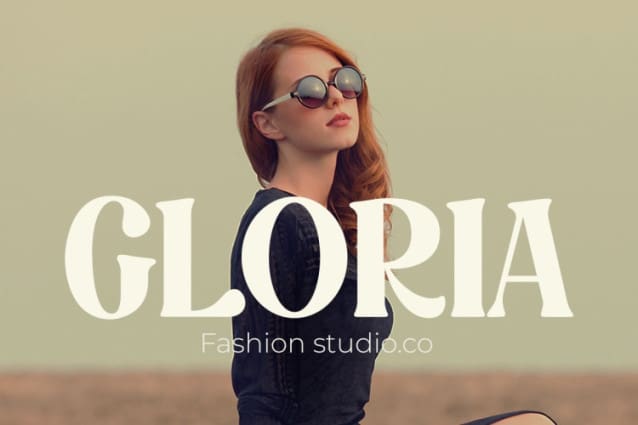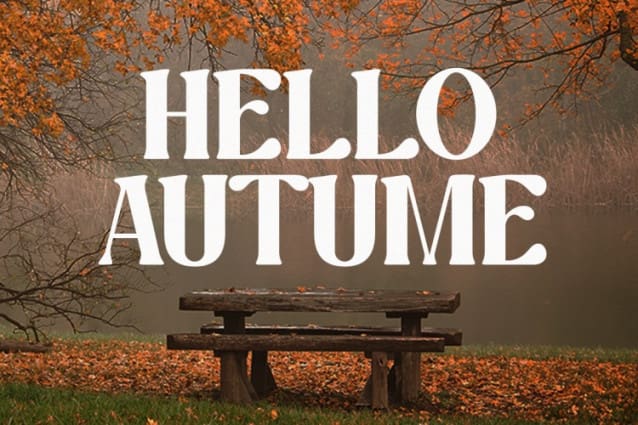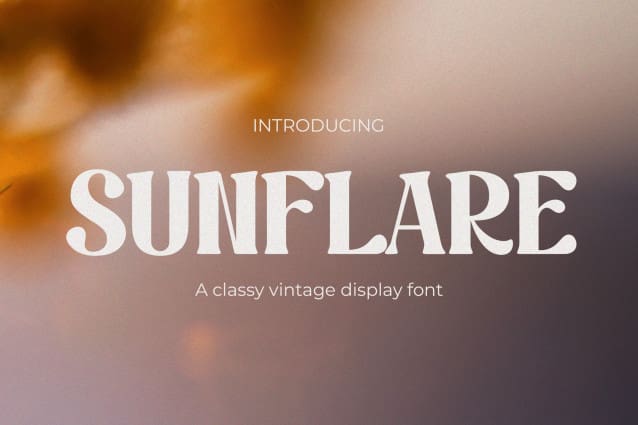
Sunflare Display Font
Sunflare Display Font – Groovy Vintage Font. Step into the golden era of design with Sunflare, a font that radiates the essence of retro charm, classic elegance, and modern grooviness. Tailored for fashion, logos, quotes, invitations, signage, posters, greeting cards, packaging, branding, wedding quotes, cover albums, and beyond, Sunflare invites you to explore the fusion of timeless styles.
Its vintage allure pays homage to the classics, while a touch of groovy modernity adds a contemporary twist. Perfect for projects that demand a harmonious blend of the old and the new, Sunflare sets the stage for designs that transcend eras. Whether you’re crafting a logo that stands out with a hint of nostalgia or designing invitations that evoke a sense of timeless celebration, Sunflare infuses your creations with a radiant charm that captivates. Immerse your designs in the groovy vintage revival of Sunflare and watch as each project unfolds with a unique blend of retro sophistication and modern allure.